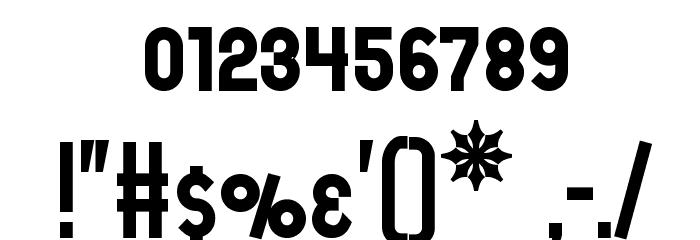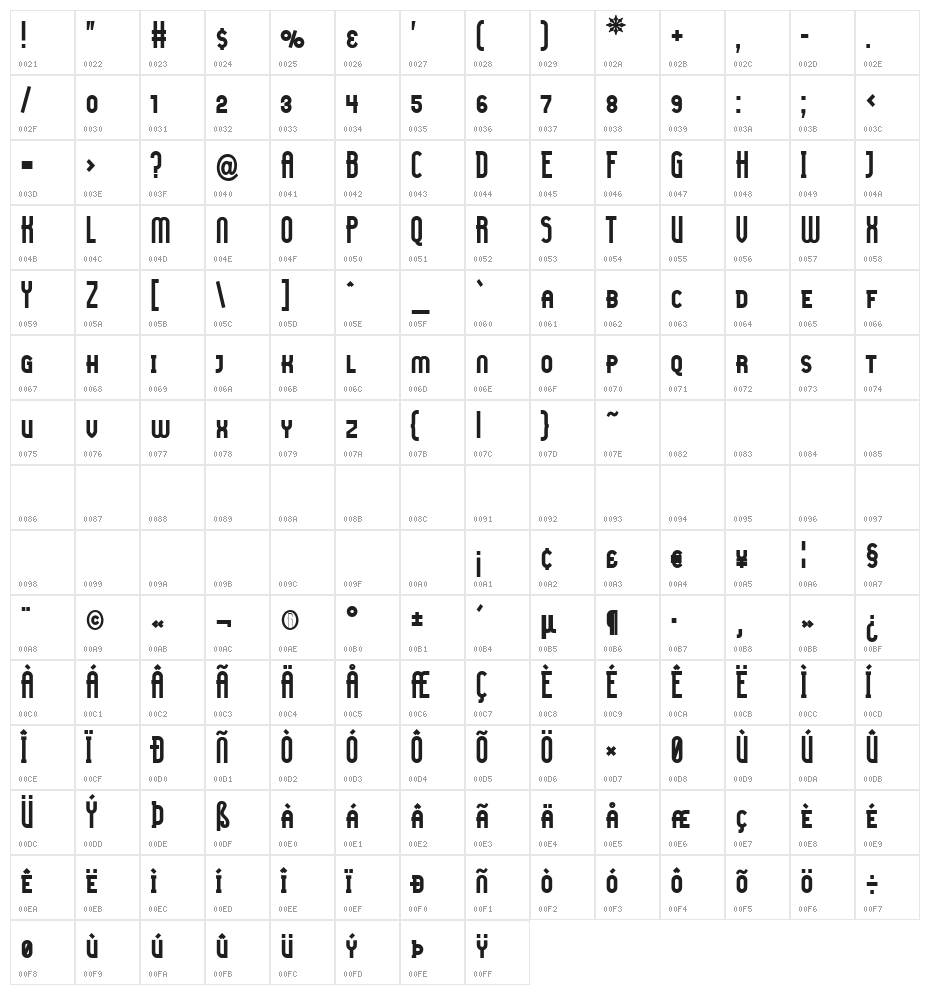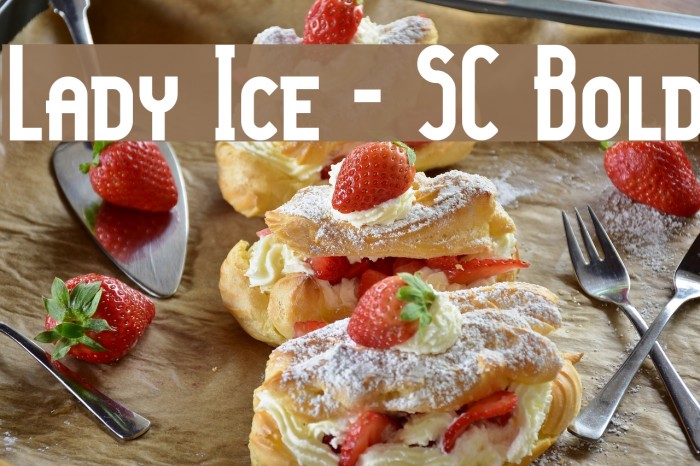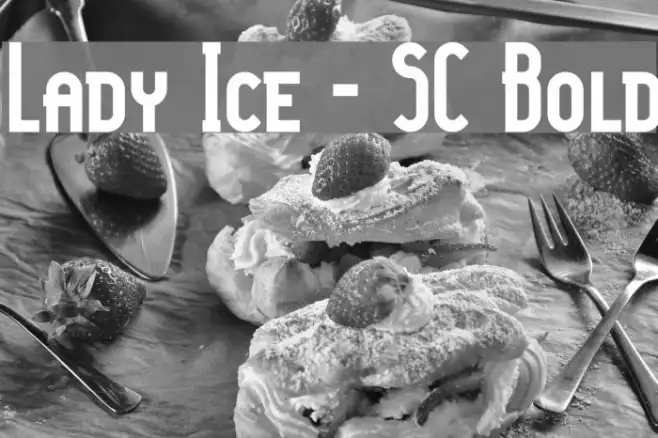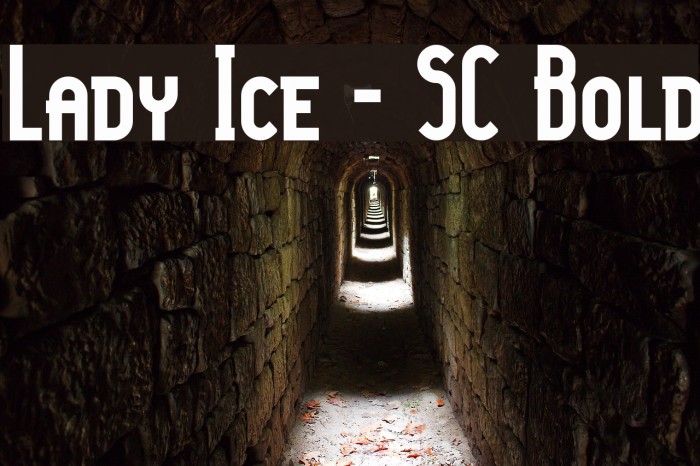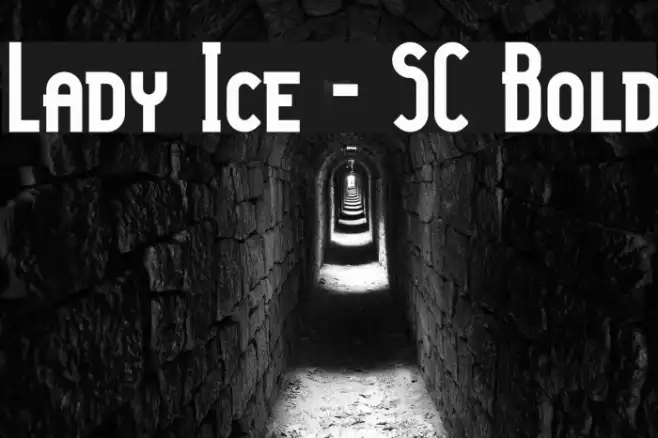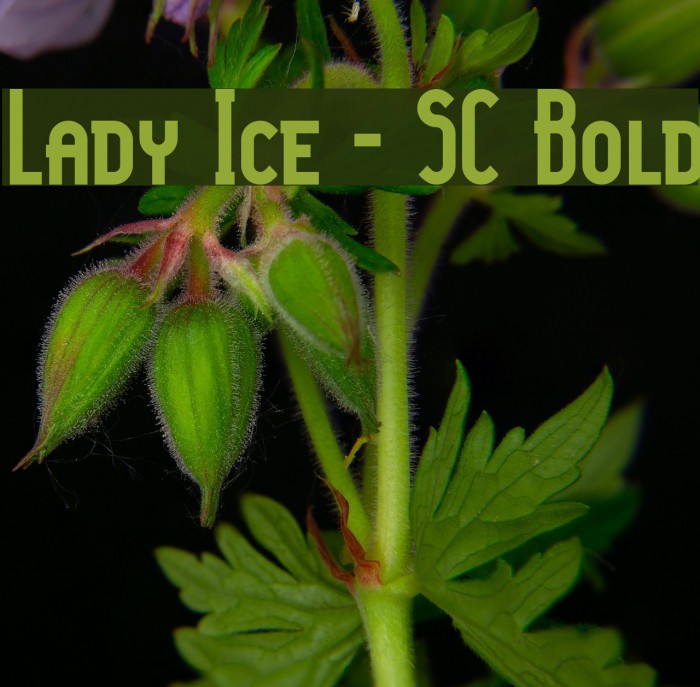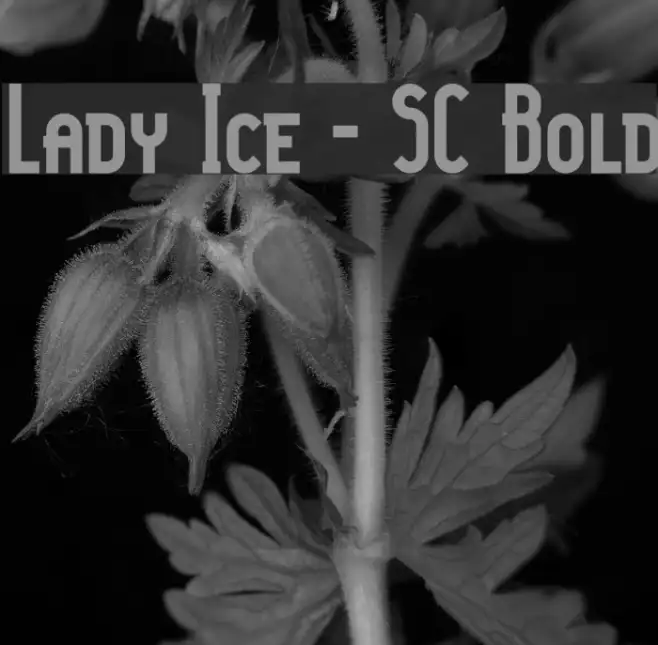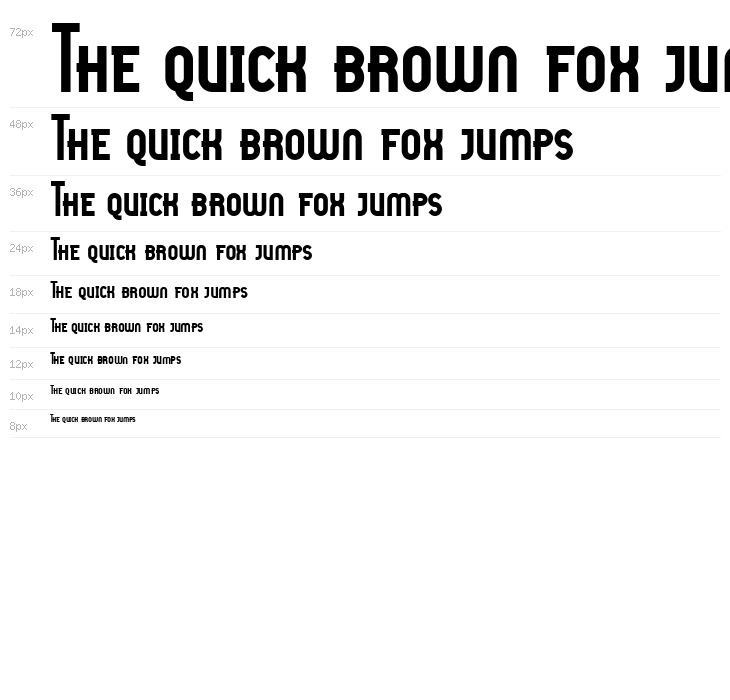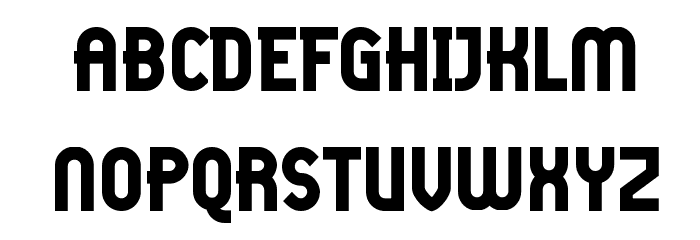
Lady Ice - SC Bold Font
Lady Ice - SC Bold Description
This font features a bold and striking design with a modern, geometric aesthetic. The characters are tall and narrow, with consistent stroke widths that give it a uniform appearance. The uppercase letters have a distinct, blocky style, while the lowercase letters maintain a similar structure, providing a cohesive look across the typeface. The numbers are equally bold, ensuring visibility and readability. Special characters are included, each designed to match the overall style, making this font versatile for various uses. Its clean lines and strong presence make it suitable for impactful designs.
| Proposed Projects | Ideal for branding, posters, headlines, and any design requiring a strong visual impact. |